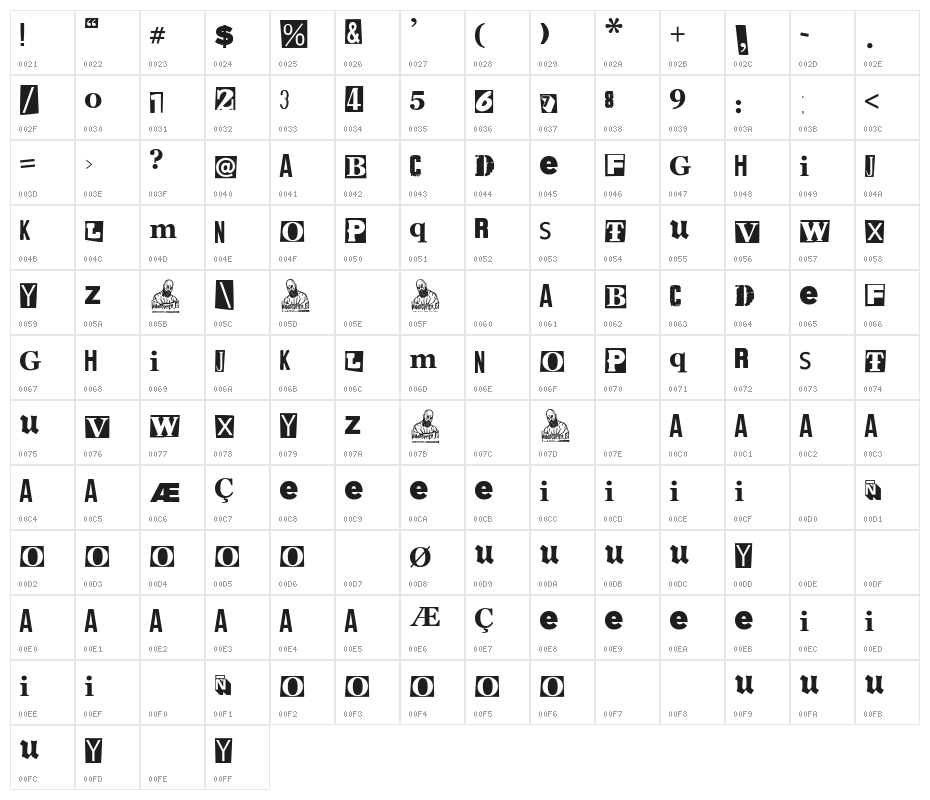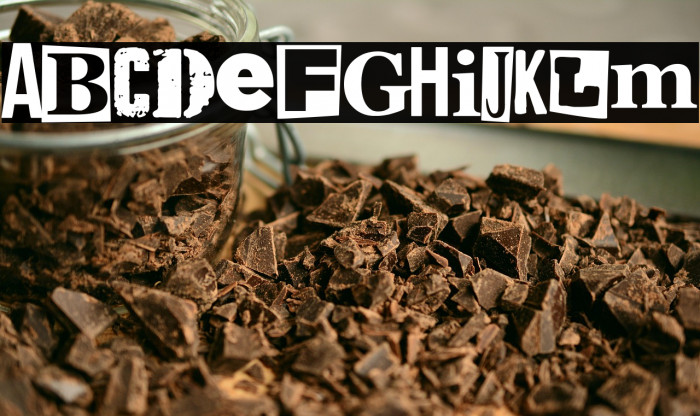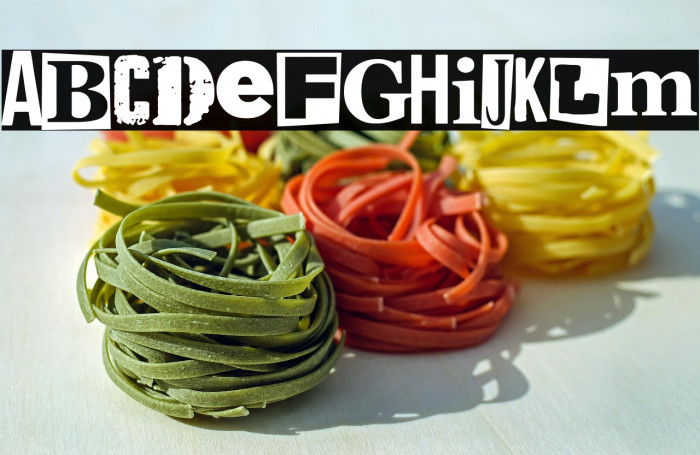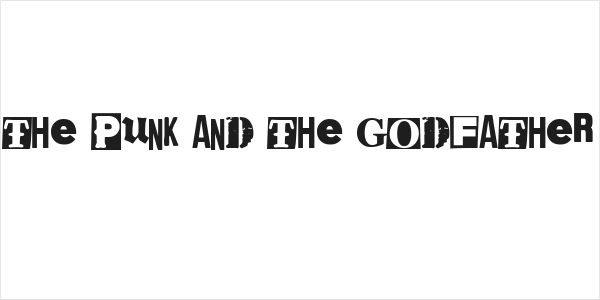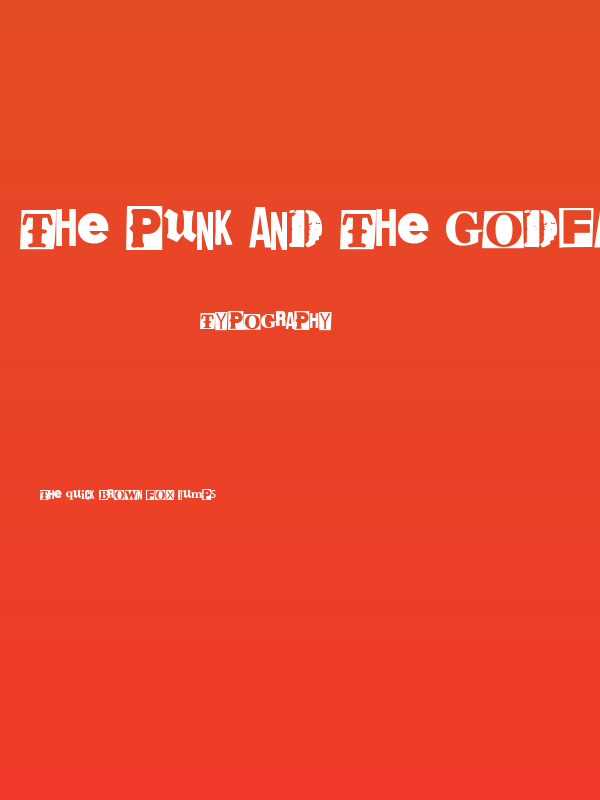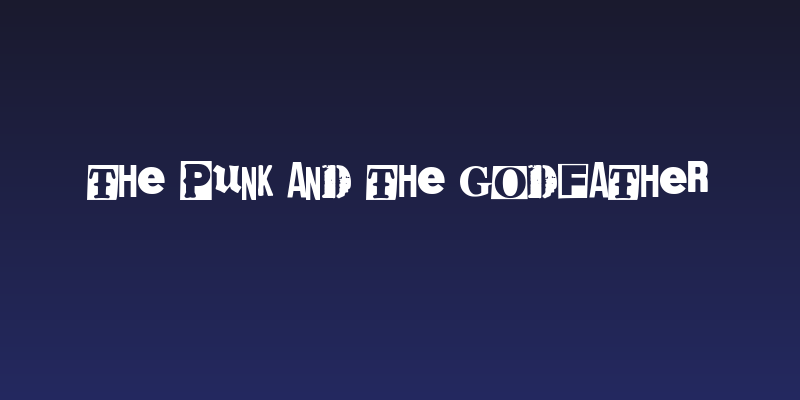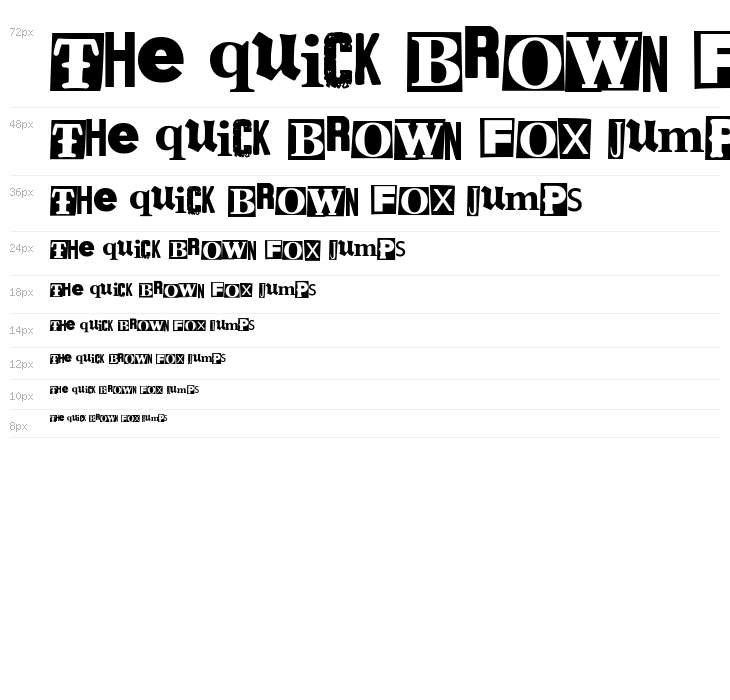
The Punk And The Godfather Font
The Punk And The Godfather Description
This font is a bold and eclectic display typeface that combines elements of punk and retro styles. Each character is uniquely designed, often incorporating distressed textures, irregular shapes, and varying line weights. The uppercase letters are particularly striking, with some characters appearing as if they are cut from different materials or have been pieced together from various sources. The lowercase letters maintain the same eclectic style, offering a playful and rebellious aesthetic. Numbers and special characters are equally distinctive, adding to the font's overall dynamic and unconventional appearance. This typeface is perfect for projects that require a bold statement and a touch of vintage flair.
| Overall Style | Vintage, Punk |
| Use Case | Headlines, Posters, Logos |
| Proposed Projects | Ideal for music album covers, posters, event flyers, and any project needing a bold, rebellious look. |